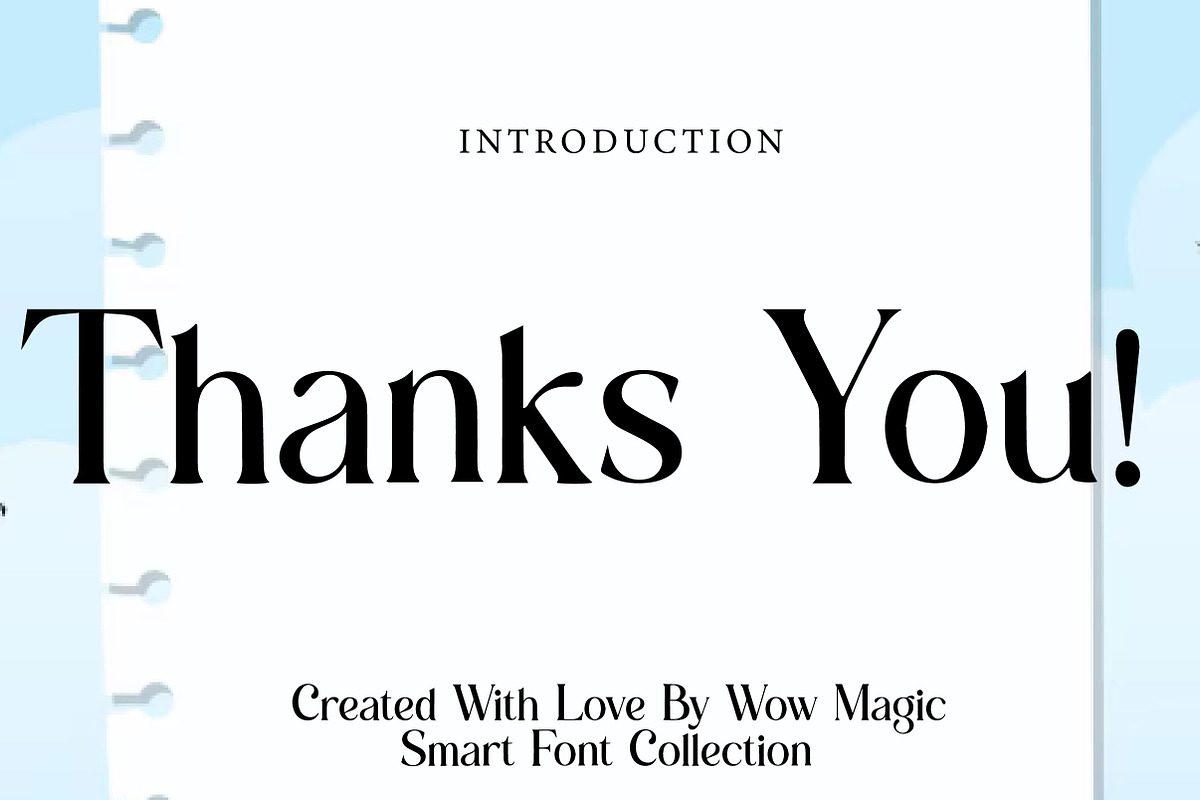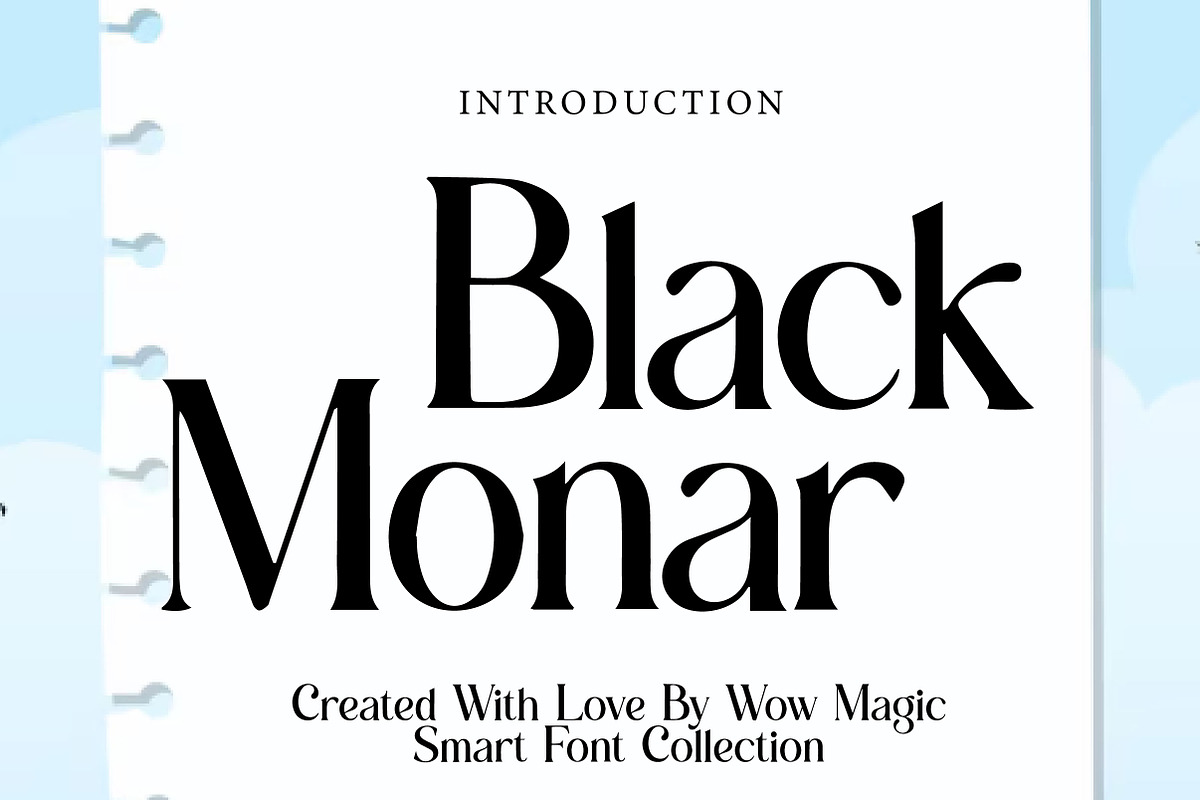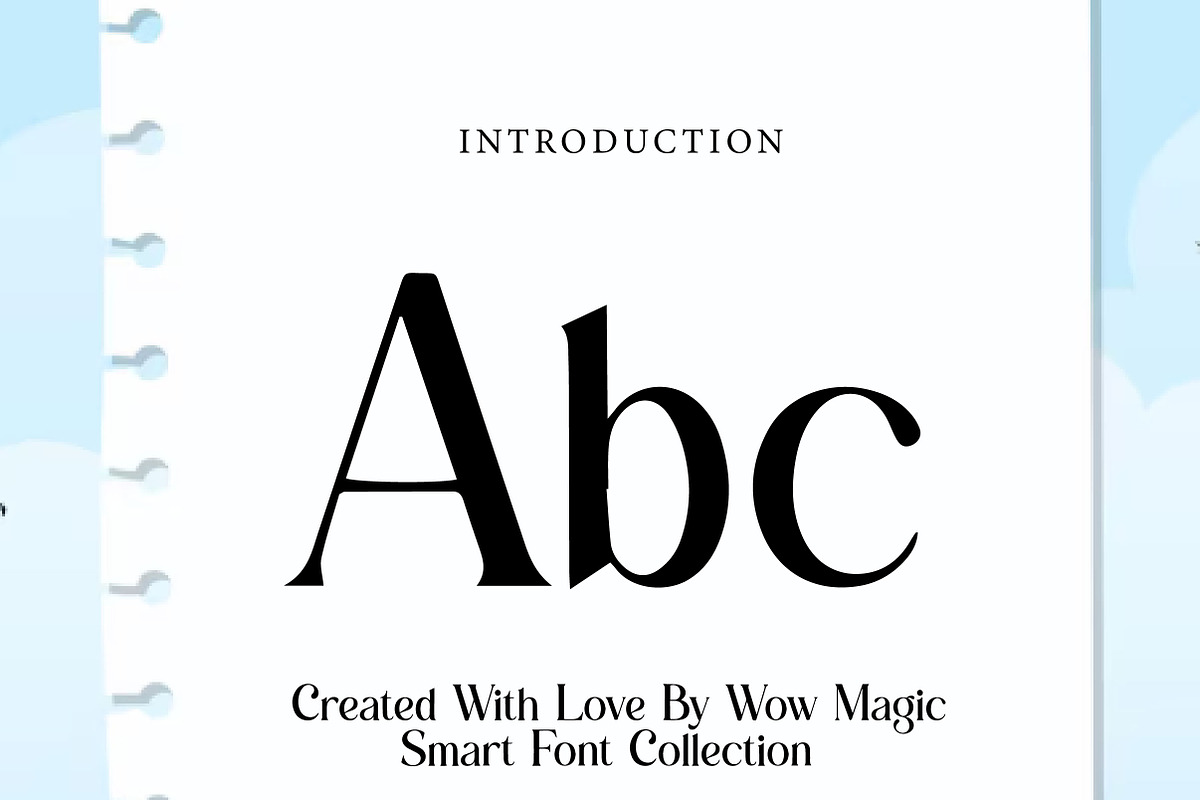
Black Monar
Black Monar – Elegant Luxury Serif Font
Black Monar is an elegant and sophisticated serif font with a luxurious modern-classic feel, perfect for branding, editorial design, logos, packaging, and premium creative projects.
Black Monar is a refined serif font designed to bring elegance, contrast, and timeless sophistication to your designs. With its graceful curves, sharp serif details, and balanced letterforms, this font creates a luxurious and polished look that feels both classic and modern.
Its stylish character makes Black Monar perfect for high-end projects that need a premium visual identity. Whether you are creating fashion branding, editorial layouts, beauty packaging, logo designs, wedding stationery, or social media content, this font helps your typography look confident, artistic, and memorable.
The high-contrast strokes and elegant proportions give Black Monar a fashionable editorial presence while keeping it readable and versatile. Suitable for both print and digital use, this font is a beautiful choice for designers who want a typeface that feels classy, luxurious, and professionally crafted.
Perfect For Luxury branding Fashion and beauty logos Editorial and magazine layouts Product packaging Wedding invitations Website headers Social media graphics Premium stationery Elegant typography projects Sophisticated visual identities Font Features Uppercase letters Lowercase letters Numbers & punctuation Elegant serif style High-contrast strokes Modern luxury appearance Perfect for display and branding use